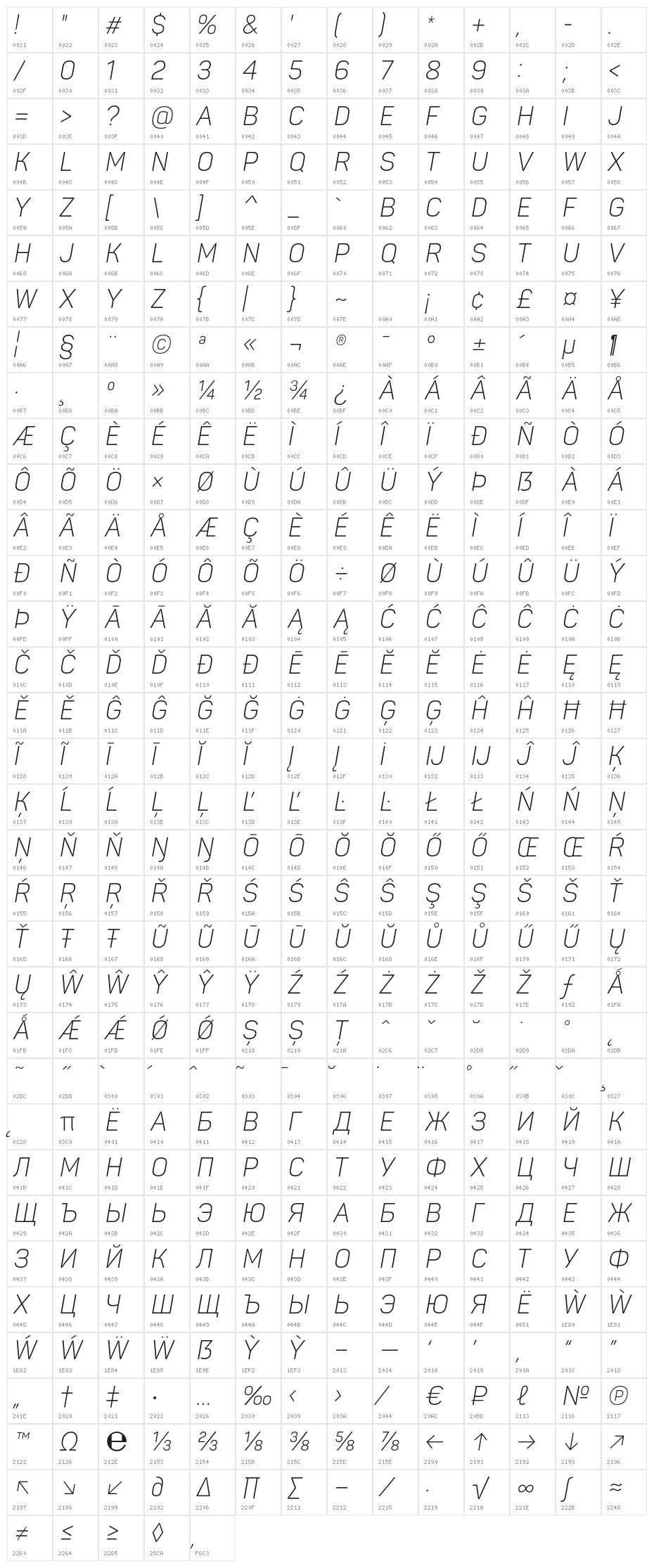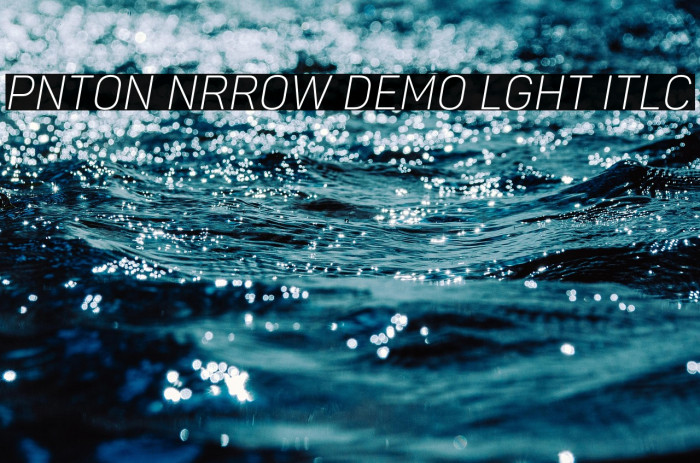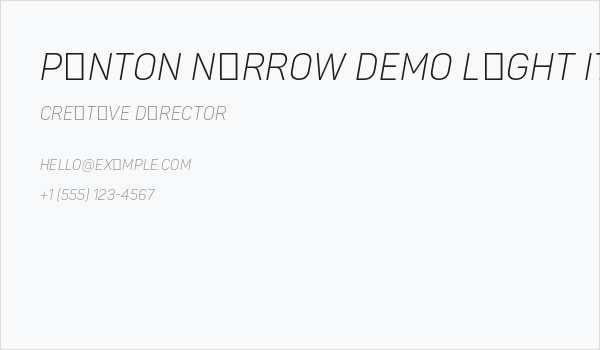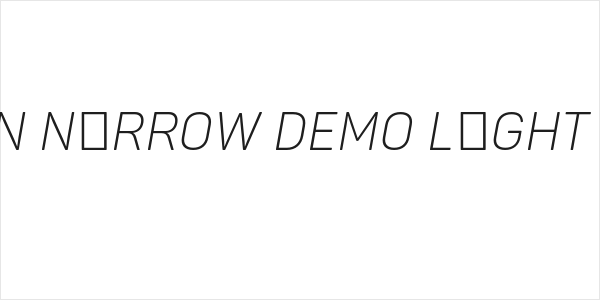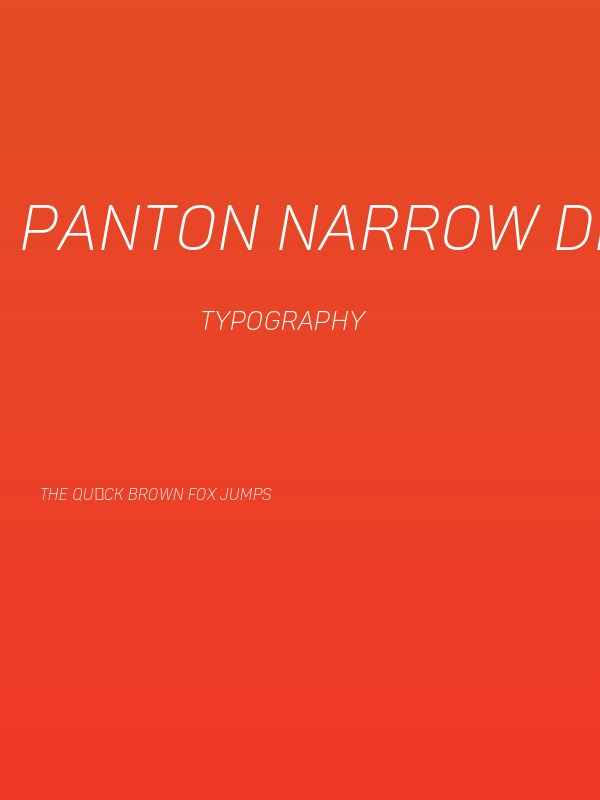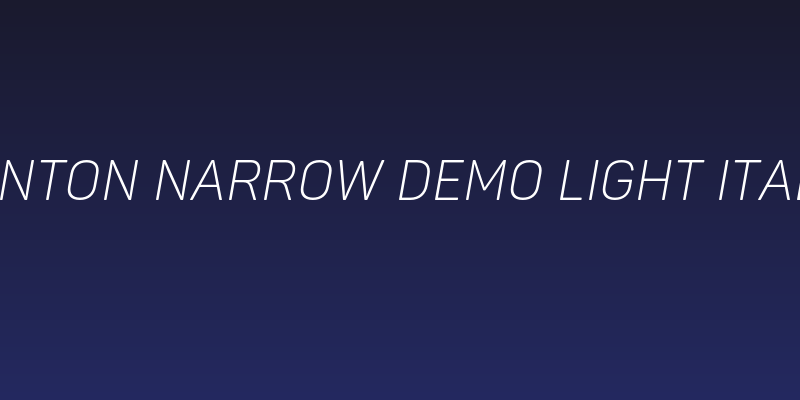
Panton Narrow Demo Light Italic Font
Panton Narrow Demo Light Italic Description
This font features a sleek and modern design with a narrow and light structure. The italic style adds a dynamic and elegant touch, making it suitable for contemporary design projects. The characters are slightly condensed, providing a streamlined appearance that enhances readability while maintaining a stylish aesthetic. The font's clean lines and minimalistic approach make it versatile for various applications, from digital interfaces to print media. Its light weight and subtle slant give it a sophisticated and professional look, ideal for conveying a sense of modernity and innovation.
| Proposed Projects | Ideal for branding, editorial design, digital interfaces, and modern print media. |